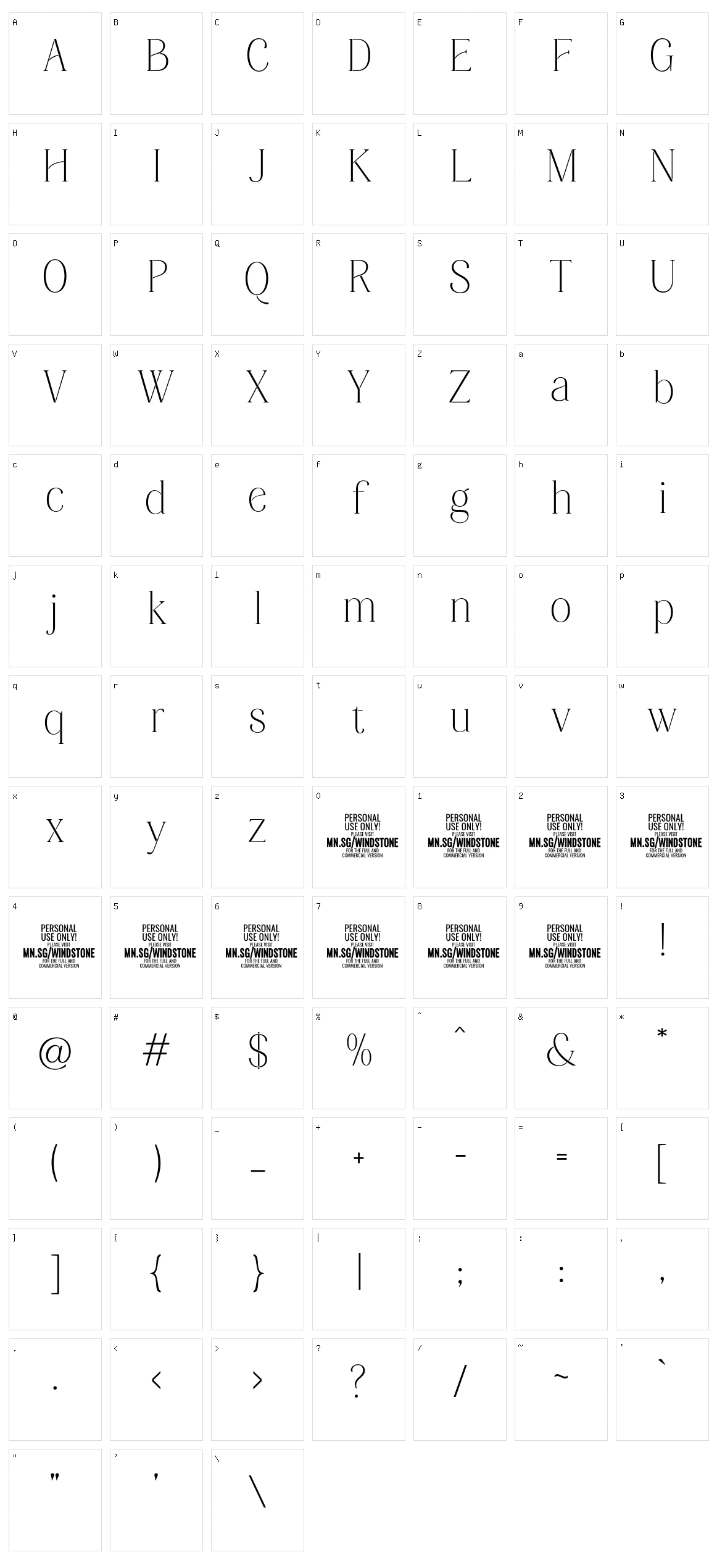
Windstone Serif is a fine and delicate typeface that exudes luxury and romance. With its natural and leafy letterforms, this beautiful font embodies the essence of art and fashion, making it perfect for projects that require a touch of sophistication and elegance. Its lovely and light features bring a sense of harmony and charm to your designs.
Available in both Regular and Italic styles, Windstone Serif offers swash alternates that add an extra layer of creativity and customization to your projects. This versatile font is ideal for use in luxury branding, fashion editorials, wedding invitations, and other high-end designs where a delicate and romantic touch is needed.
The font is built with advanced OpenType functionality and has a guaranteed top-notch quality, containing stylistic and contextual alternates, ligatures, and more features; all to give you full control and customizability. It has extensive lingual support, covering all Latin-based languages, from Northern Europe to South Africa, from America to South-East Asia. It contains all characters and symbols you'll ever need, including all punctuation and numbers.